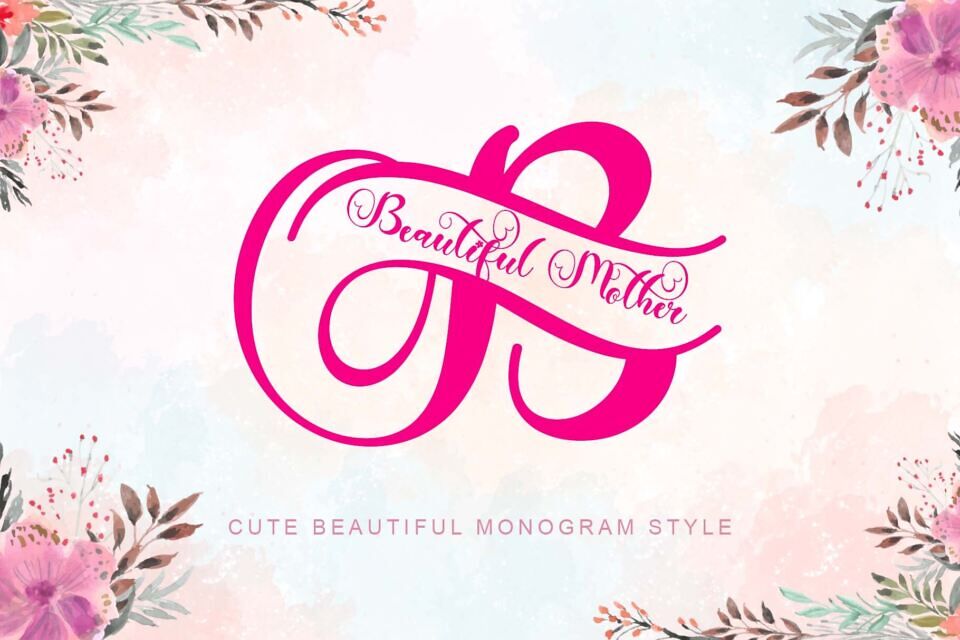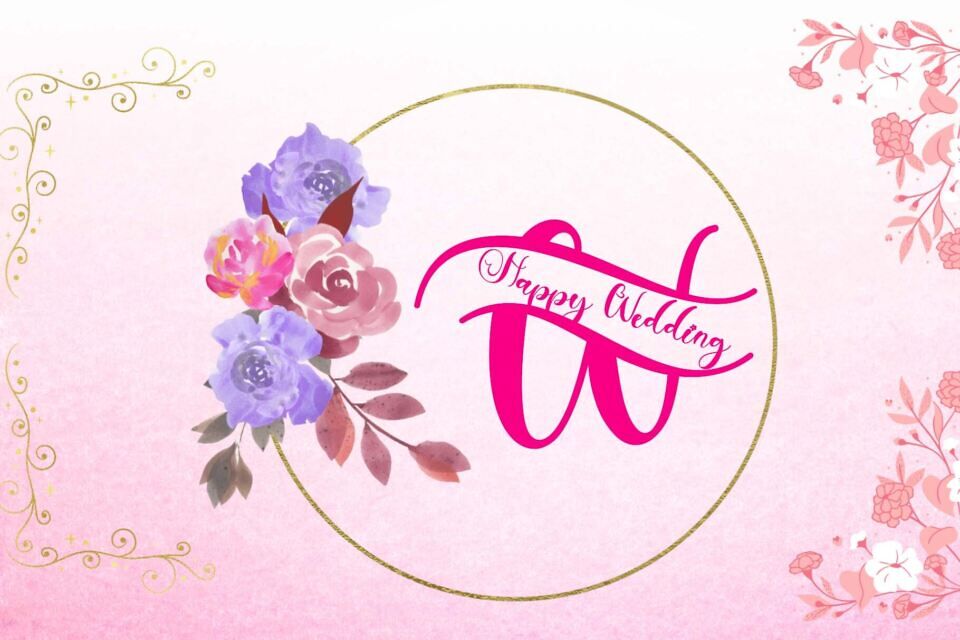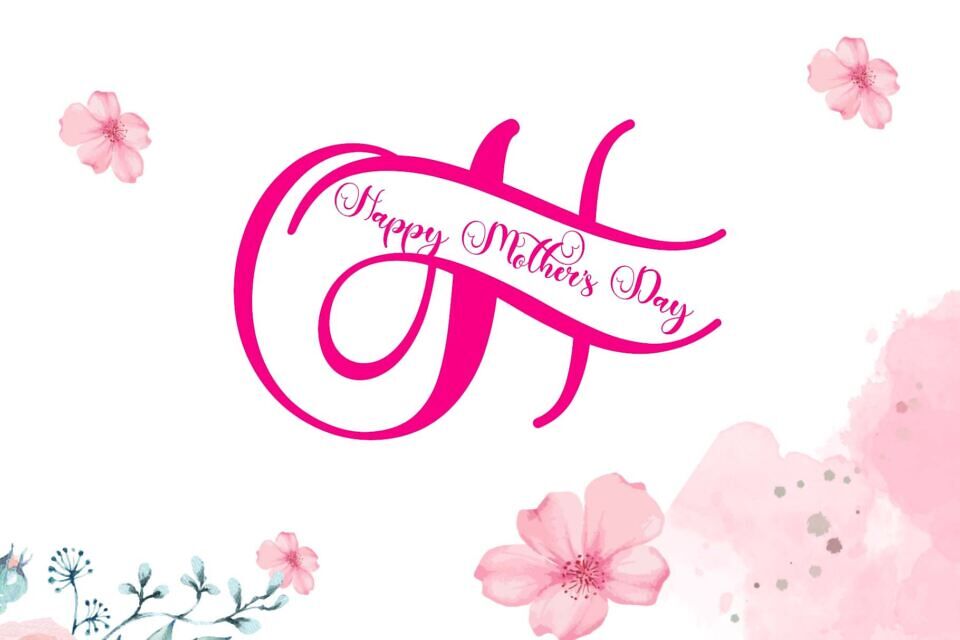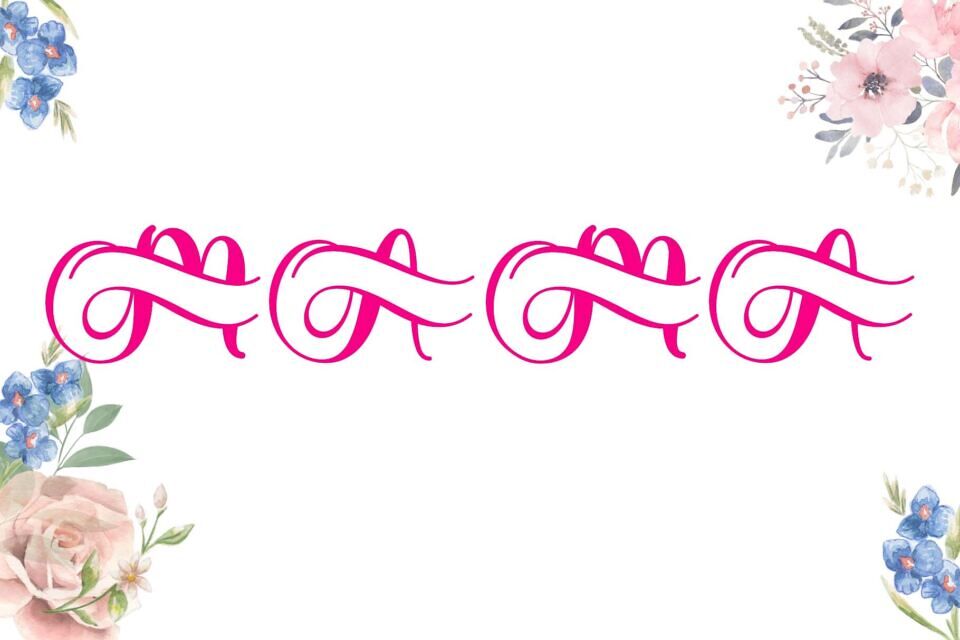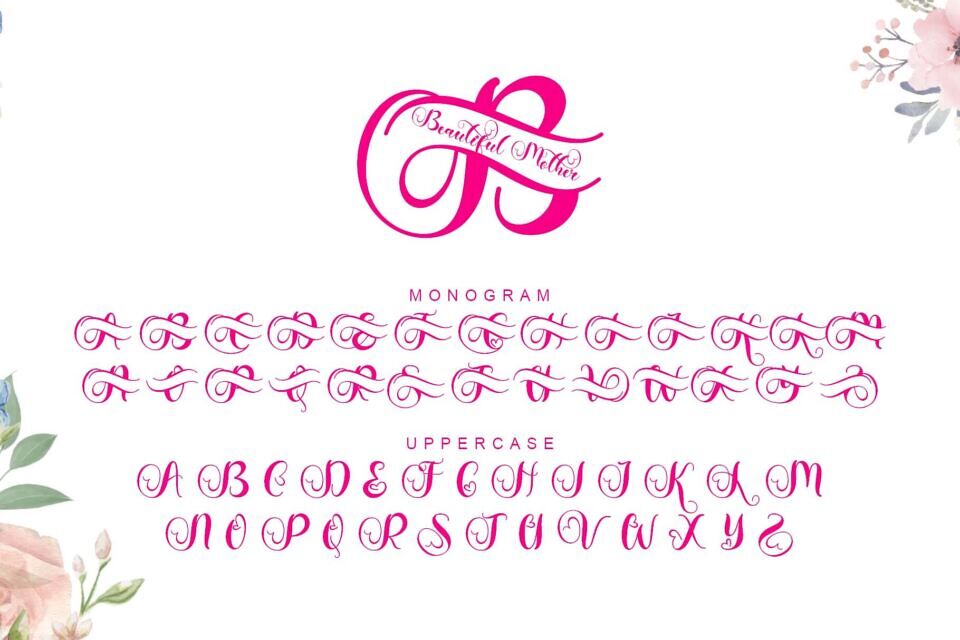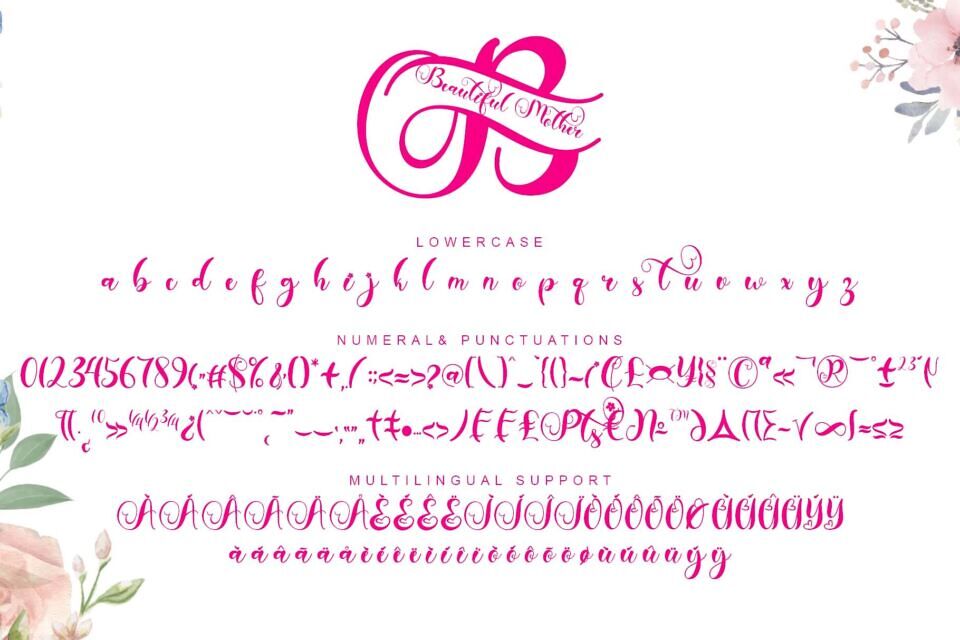
“Beautiful Mother Monogram” is a beautiful and unique monogram font. This font is equipped with monograms, uppercase, lowercase, numerals, punctuations and multilingual support.
Very suitable for weddings, invitations, mother’s day, christmas, spring, summer and others.